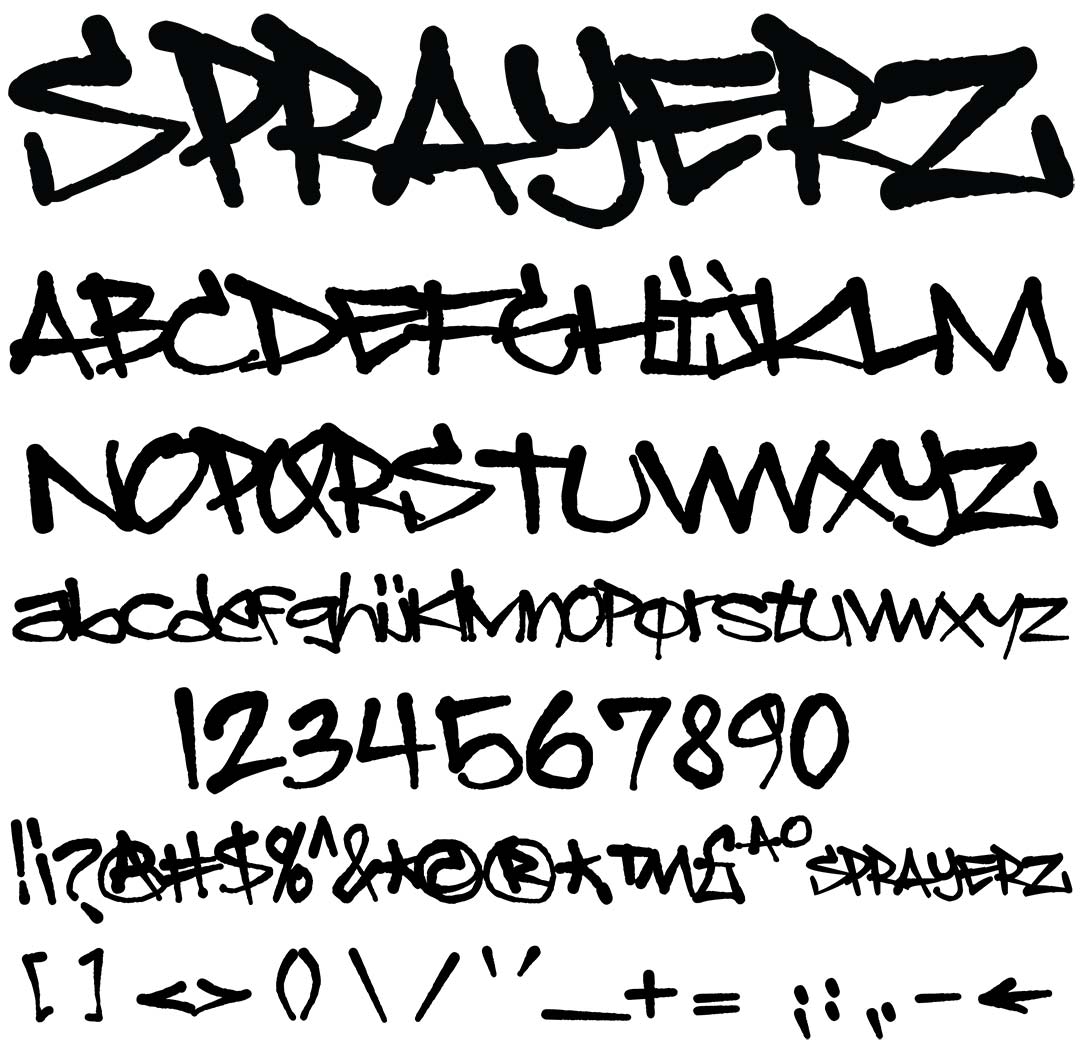
Sprayerz
Sprayerz Graffiti Alphabet
Sprayerz Graffiti Font Family
Created in 2008 Sprayerz is one of BRKs premier graff fonts. This simple tag style conveys the look of spray paint using a standard cap. The font includes a full uppercase & a full lowercase alphabet, numbers & lots of symbols.